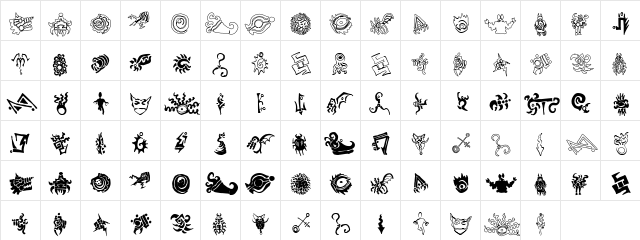
Cathzulu Extraz Regular
Design Context for Cathzulu Extraz Typeface
Cathzulu Extraz is a composed and adaptable typeface that performs quietly and consistently across a wide range of design contexts.